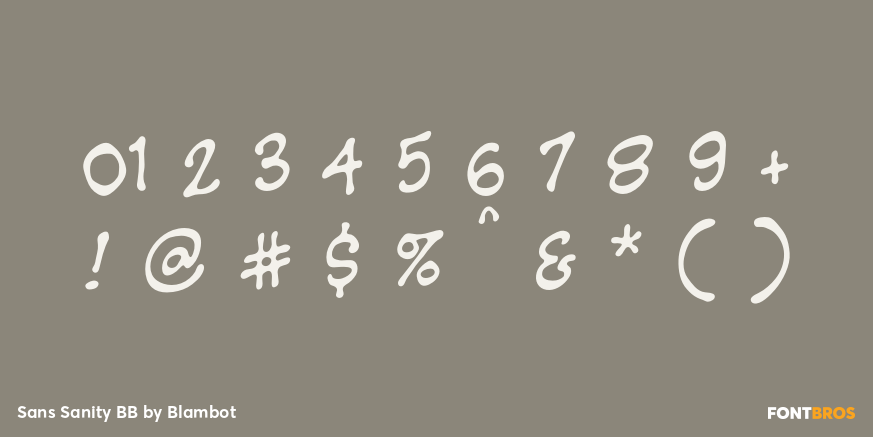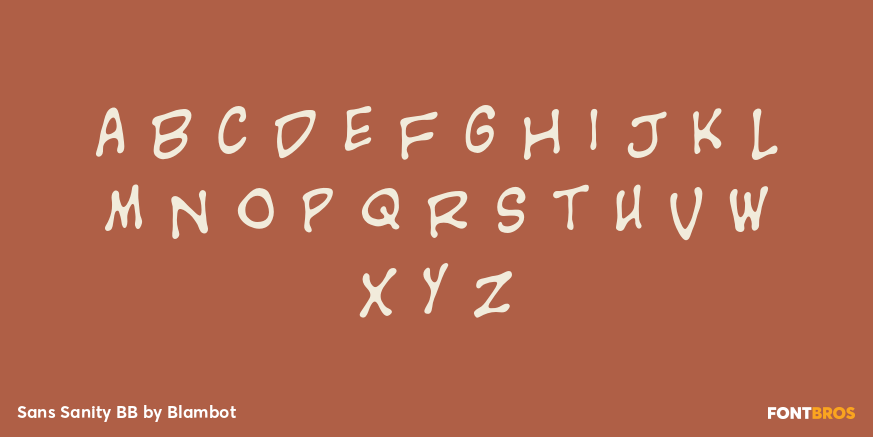
Sans Sanity BB
Are you a few sandwiches short of a picnic? Maybe drunk as a skunk? Blambot's Sans Sanity BB is the font for you! It's a comic book dialogue font with a staggered baseline and OpenType autoligatures that swap out duplicate letters for an organic, hand-lettered look. A dizzying array of European characters are features with Regular, Bold and Italic included!